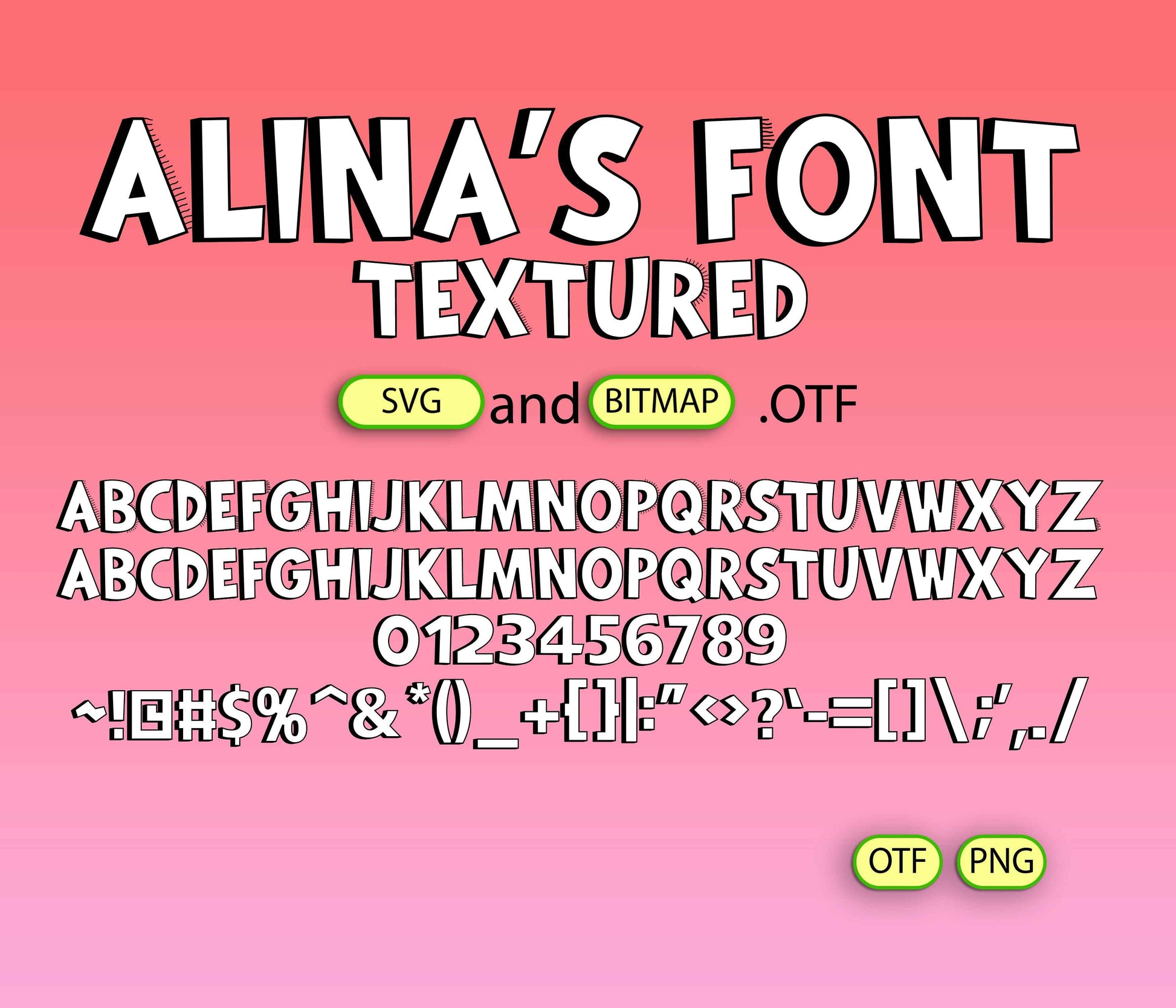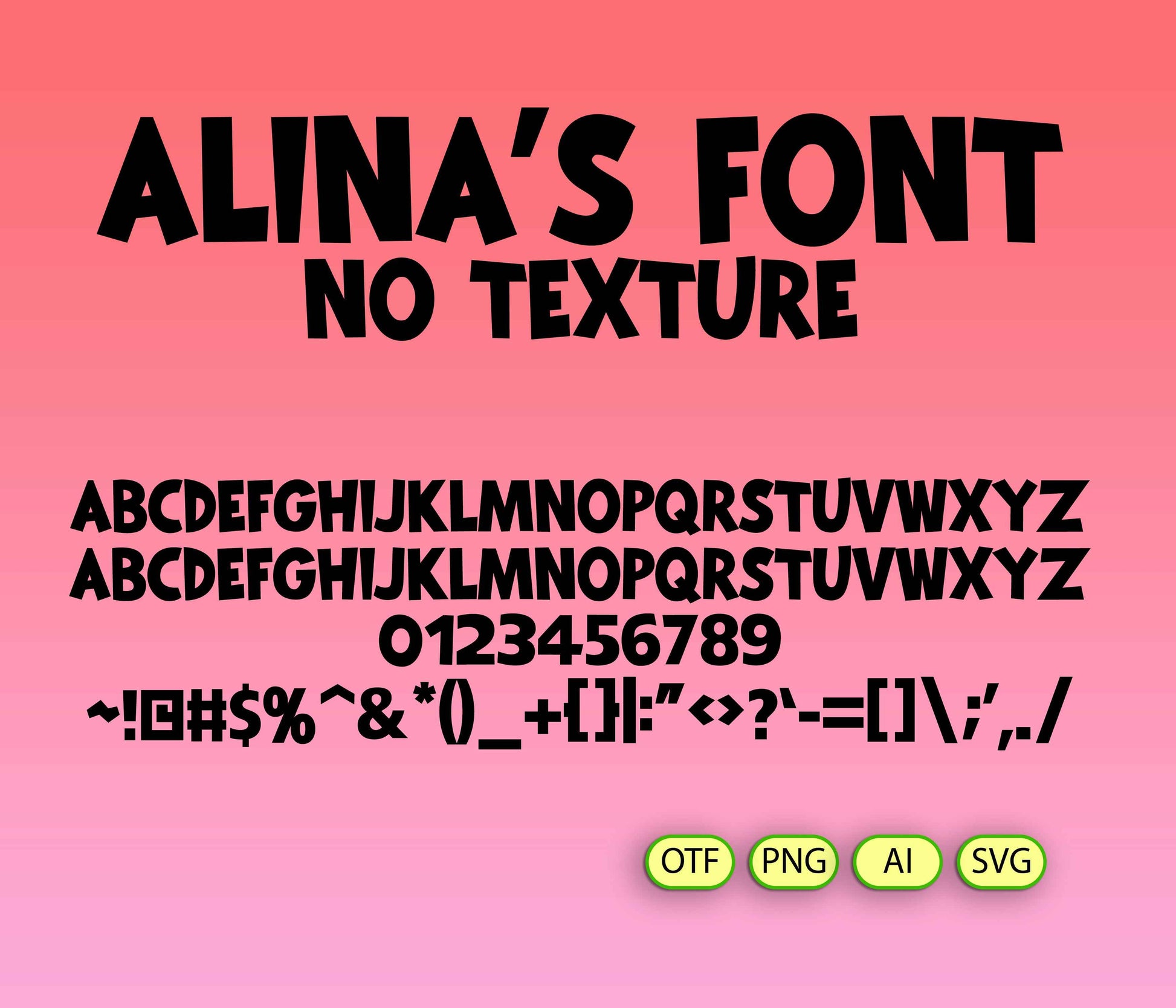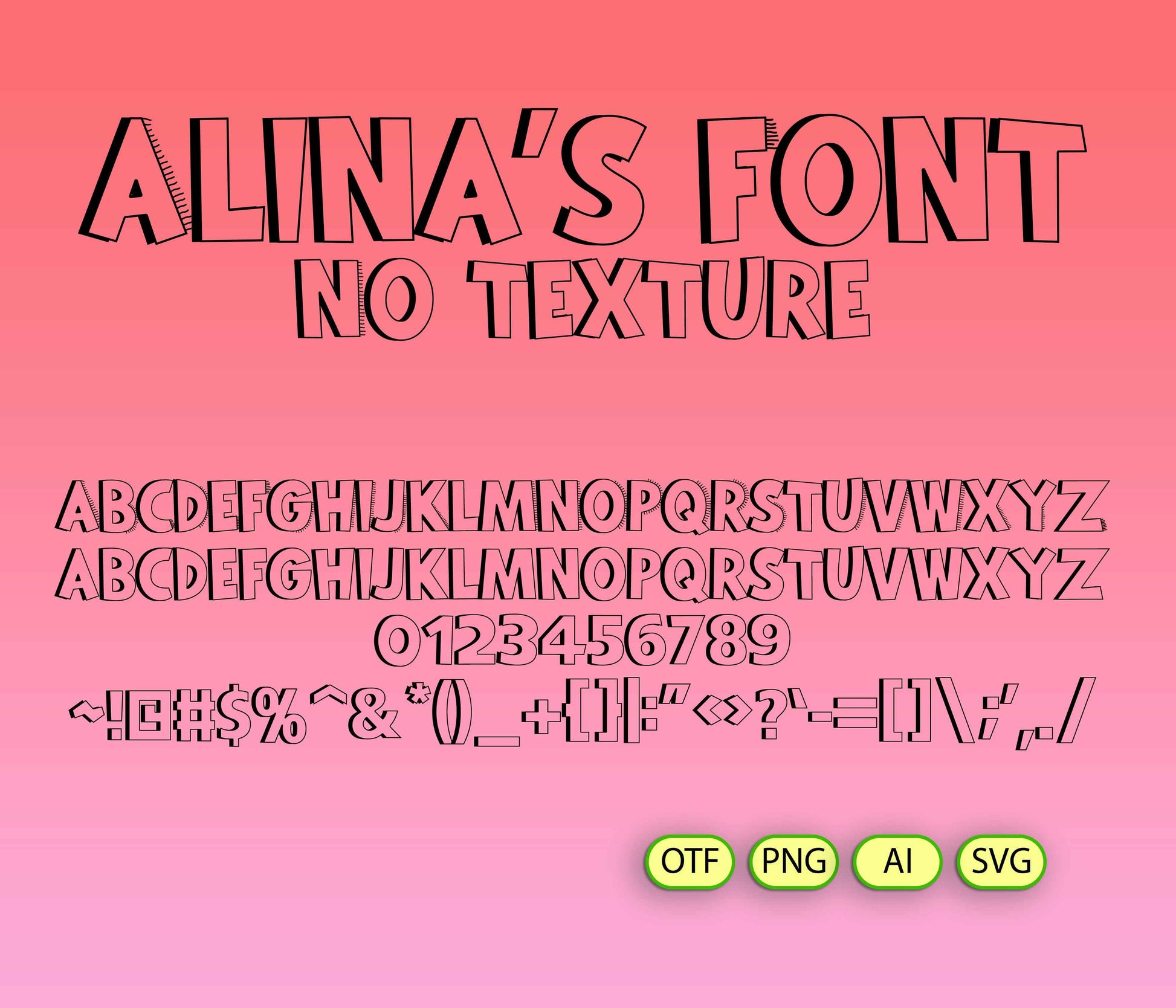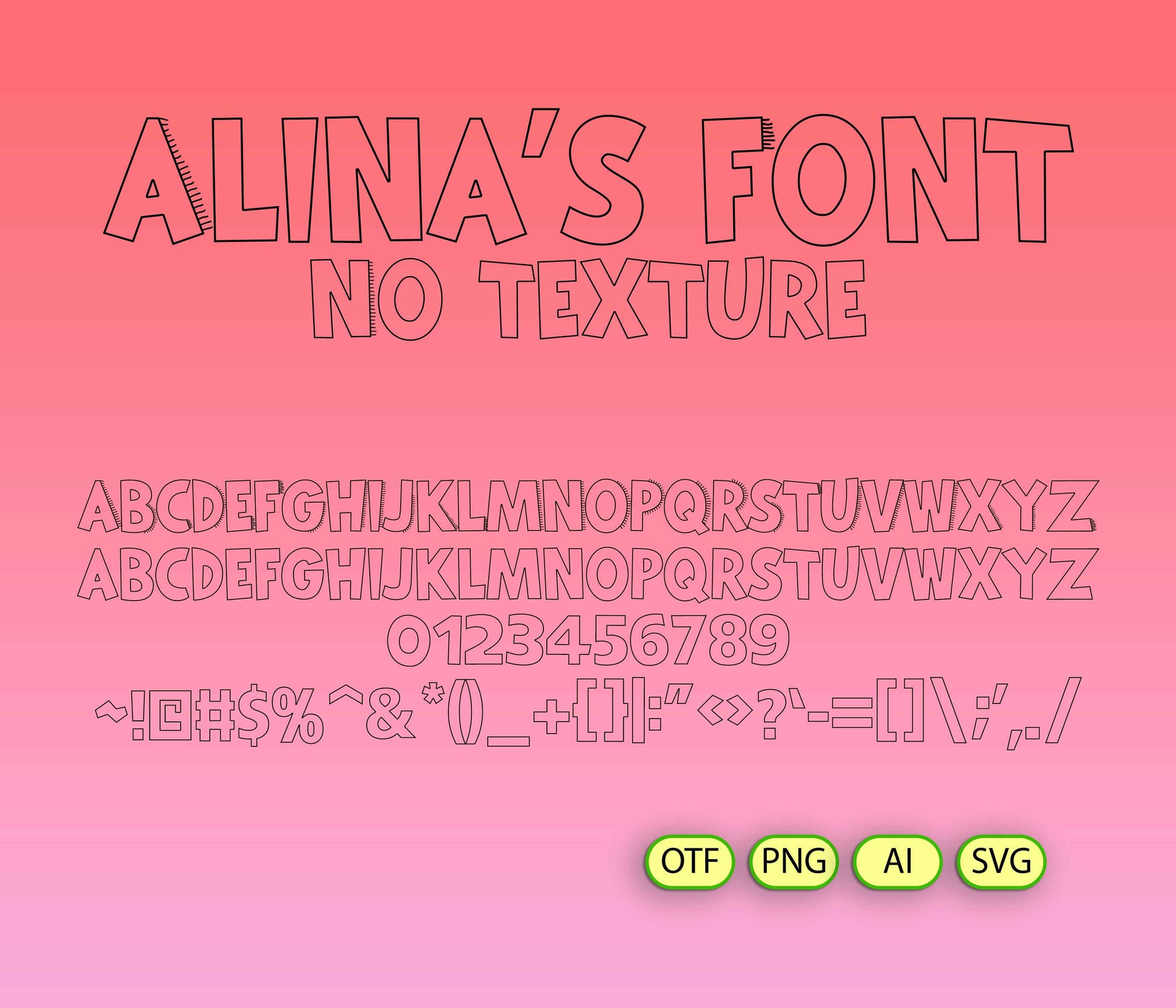
Chaotic Family Font Textured Bundle
Chaotic Family Textured Font 2024
Step into the chaotic and loving world of a large animated family with our dedicated font, designed to capture the essence of a hit animated series. This font embodies the lively, energetic atmosphere of a home bustling with siblings, where every day is an adventure filled with laughter, challenges, and a lot of noise. Perfect for fans, creators, and anyone looking to infuse their projects with the fun, heartwarming spirit of a boy and his ten sisters, the Chaotic Family font invites you to create designs that resonate with the themes of family, individuality, and the endless antics that come with a house full of personalities.
What font is the 'Chaotic Family' font?
This inquiry uncovers a typeface that mirrors the vibrancy and playfulness of the show, with characters that are as diverse and expressive as the siblings themselves. The font combines a sense of youthful energy with the comfort of home, making it perfect for conveying a unique blend of humor, love, and everyday family life. Its design is approachable and dynamic, reflecting the show's appeal to viewers of all ages. With a comprehensive character set, this font allows for a wide range of creative expressions, enabling you to capture the essence of a lively household in every word.
1. Merchandise Design: Design T-shirts, posters, and accessories that capture the charm of a large family and appeal to a wide fan base.
2. Social Media Campaigns: Create engaging graphics that reflect themes of sibling relationships and family dynamics.
3. Event Invitations: Craft unique invitations for viewing parties, themed birthdays, or fan gatherings that channel a fun-loving family spirit.
4. Educational Materials: Add a playful twist to learning resources or presentations with a font that's as engaging as a house full of kids.
5. Fan Projects: Bring fan fiction, art, or comics to life with a font that feels like it came straight from the world of a beloved animated family.
6. Website and Blog Design: Ideal for fan sites, family-oriented content, or animation blogs looking to capture a lively family aesthetic.
7. Digital Content Creation: Enhance video content, thumbnails, and banners for creators covering family-oriented animations or topics related to large families.
The Chaotic Family font is not just a collection of characters; it's a celebration of family, chaos, and love, offering fans and creators a tool to express their affection for stories about large, lively families. Whether used for personal projects, educational content, or commercial endeavors, this font adds a layer of authenticity and engagement, making every creation a vibrant homage to the adventures of a house full of siblings.